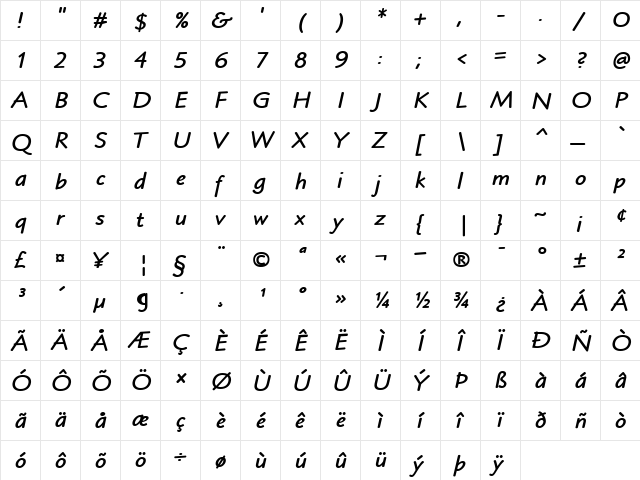
Blueprint MT ItalicBold
Design Context for Blueprint MT Typeface
Blueprint MT is a composed and adaptable typeface that performs quietly and consistently across a wide range of design contexts. Its italic angle brings a sense of urgency and motion to the letterforms. The heavy weight commands attention and anchors typographic hierarchies.
Pro Tip: Try Blueprint MT for annotation and caption copy alongside an upright companion — the contrast in angle creates a dynamic but ordered typographic system.